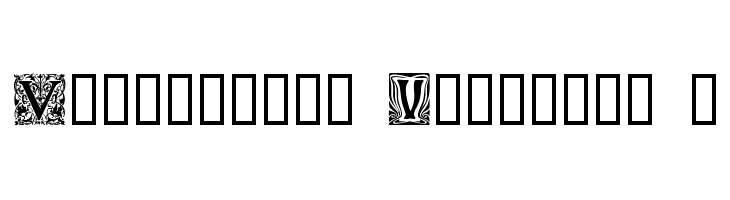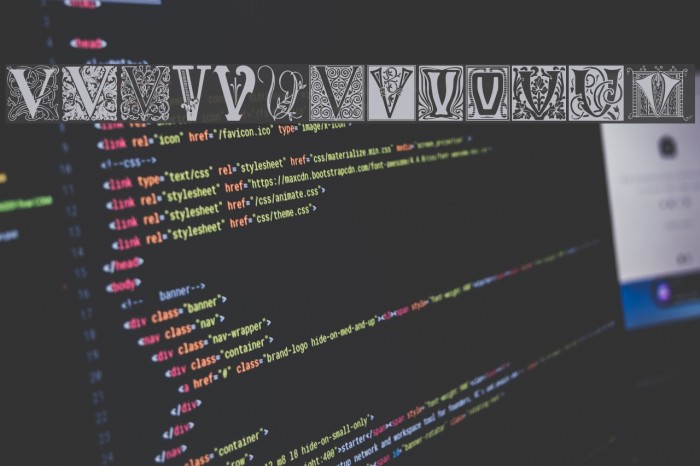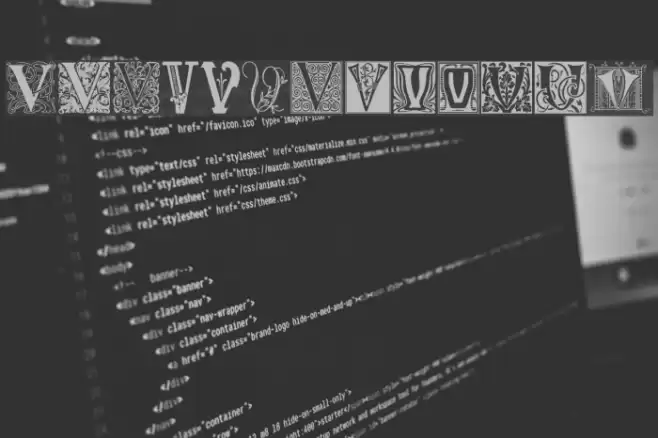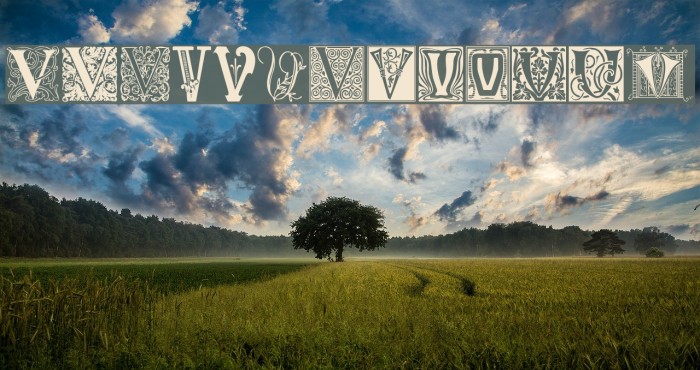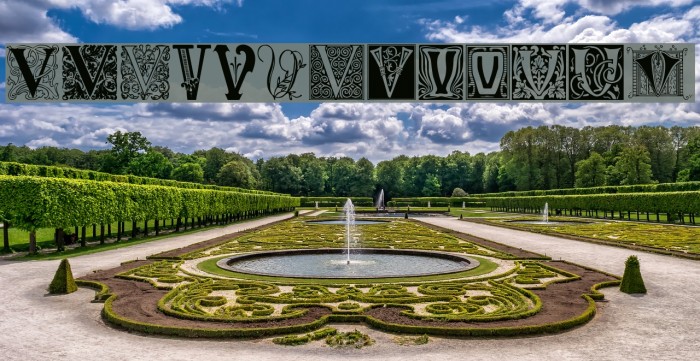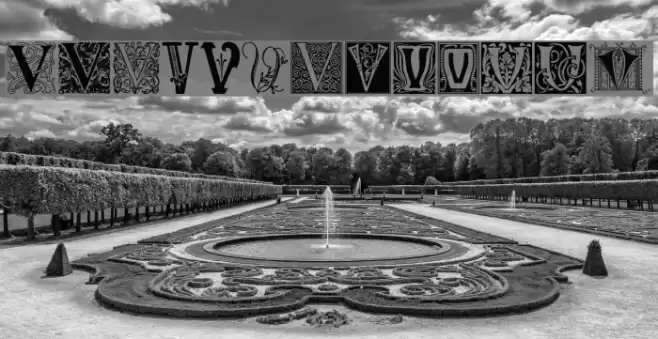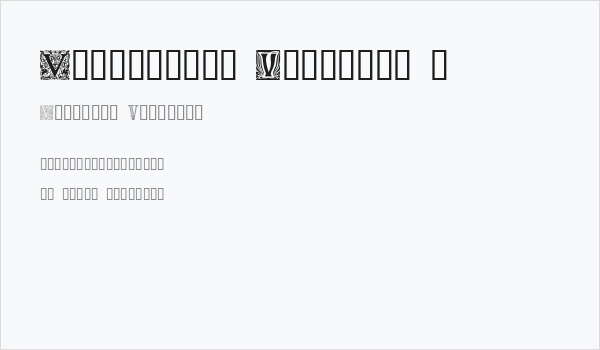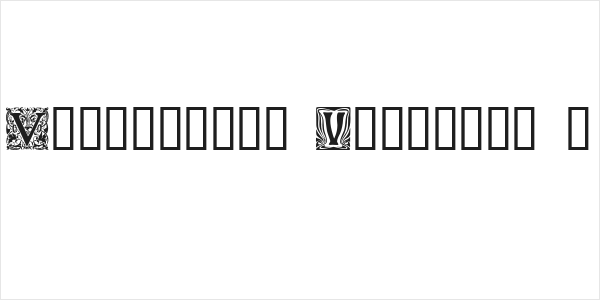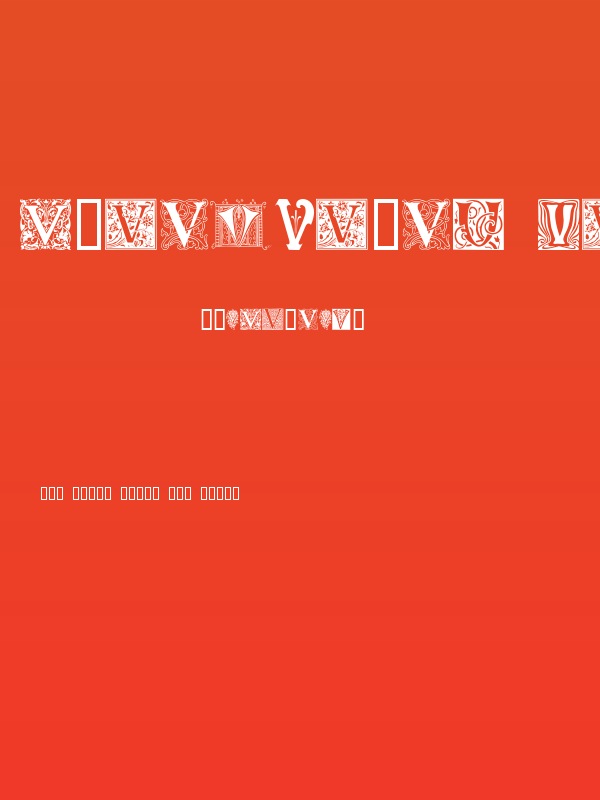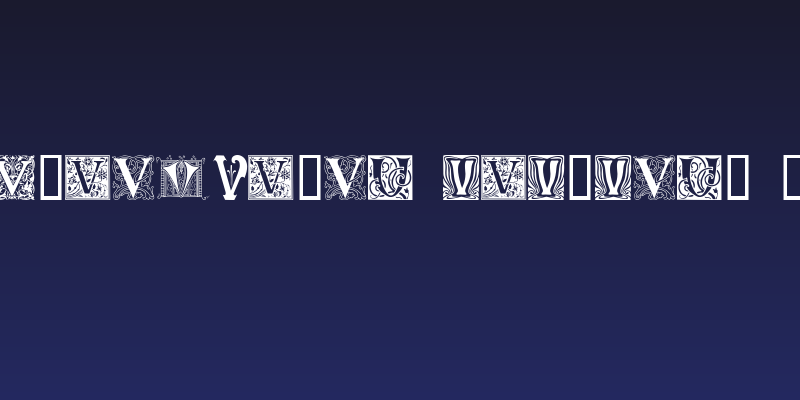
Ornamental Initials V Font
Ornamental Initials V Description
This font is a highly decorative and ornamental style, featuring intricate designs and embellishments within each letter. The characters are enclosed in square frames, each filled with elaborate floral and geometric patterns, giving them a vintage and artistic appearance. The font is primarily uppercase, with each letter being a unique piece of art, making it suitable for decorative purposes rather than body text. The detailed designs suggest a historical or classical influence, ideal for projects that require a touch of elegance and sophistication.
| Use Case | Logos, Headlines, Decorative elements |
| Proposed Projects | Ideal for wedding invitations, vintage-themed posters, book covers, or any project requiring an elegant and artistic touch. |